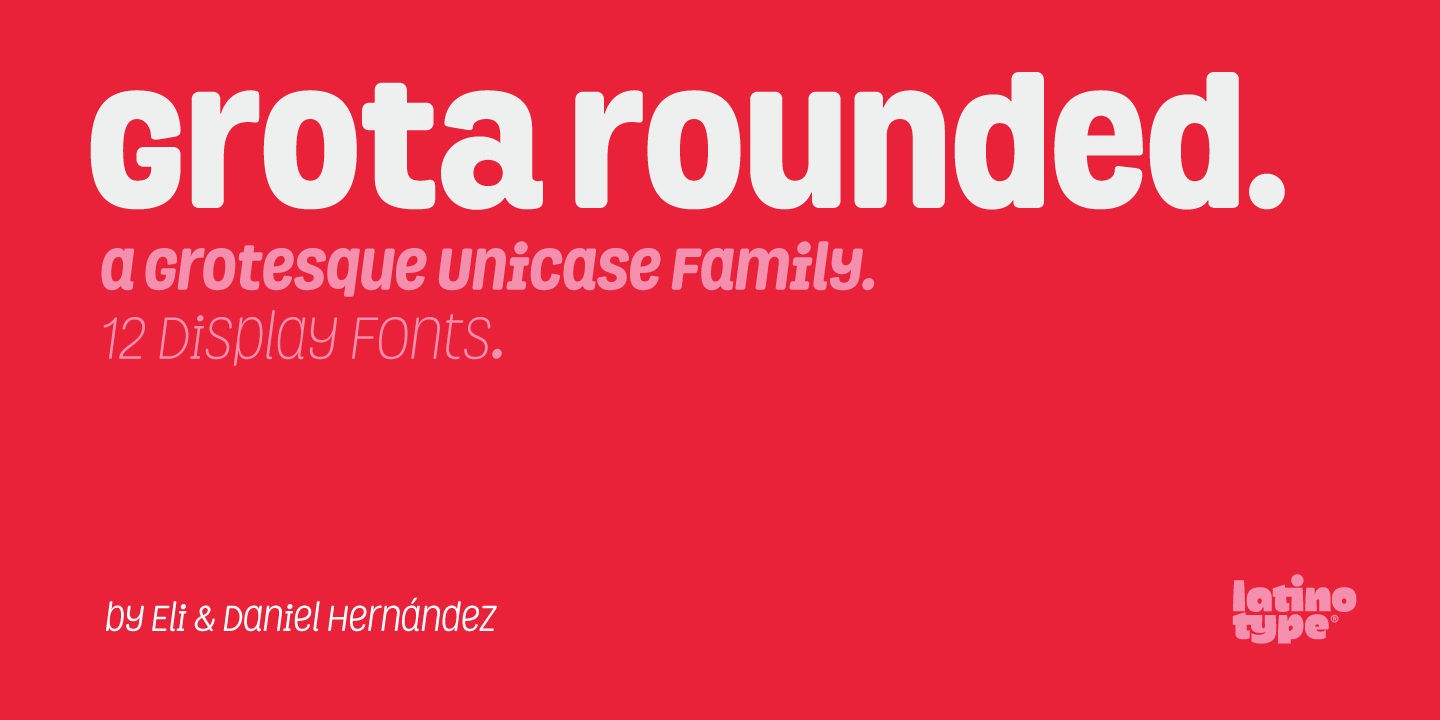
The Grota Rounded Font Free Download is ideal for logos, branding, posters, magazines, and book covers, offering a vibrant, expressive sans-serif aesthetic.
This font is exciting because its gestural, hand-lettered design with rounded corners blends grotesque and unicase styles, infusing a Latin spirit for dynamic, modern projects.
The Grota Rounded family includes 12 styles: six weights—Thin, Light, Regular, Bold, ExtraBold, Black—each with matching italics, ensuring versatile typography options.
Unleash creative flair with the Grota Rounded Font Free Download, a display sans-serif typeface designed by Eli Hernández and Daniel Hernández, published by Latinotype in 2013. Known for its grotesque, unicase character inspired by hand-lettering, Grota Rounded features 390+ glyphs with OpenType support for ligatures, alternates, and diacritics, supporting Latin-based languages. Perfect for headlines or branding, it’s available in OTF, TTF, and WOFF formats for seamless use across print and digital platforms. As 2025 design trends favor bold, rounded typography, downloading Grota Rounded Font Free Download keeps your work lively and contemporary. Test the demo today at fontspring.com for personal use, and consider purchasing a commercial license at myfonts.com for full access.